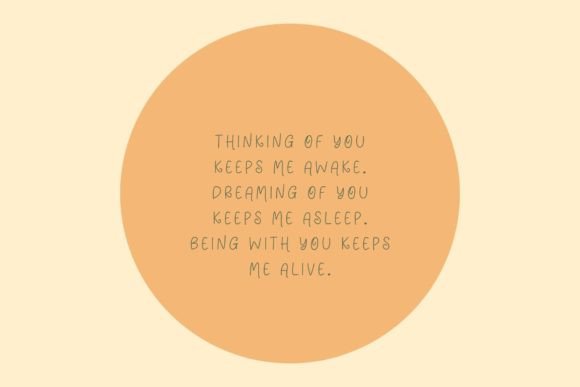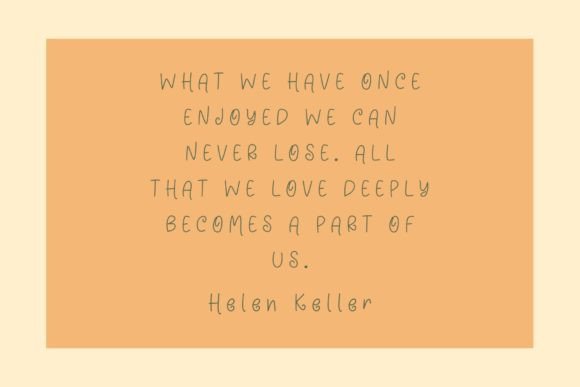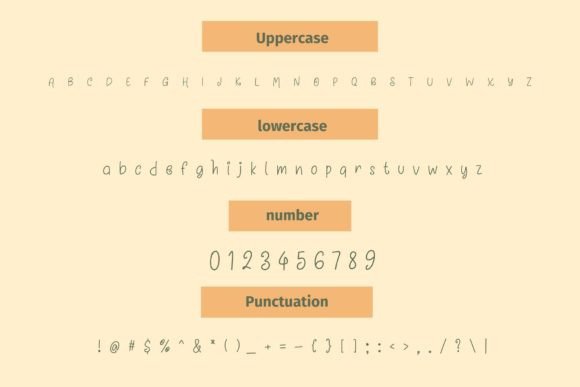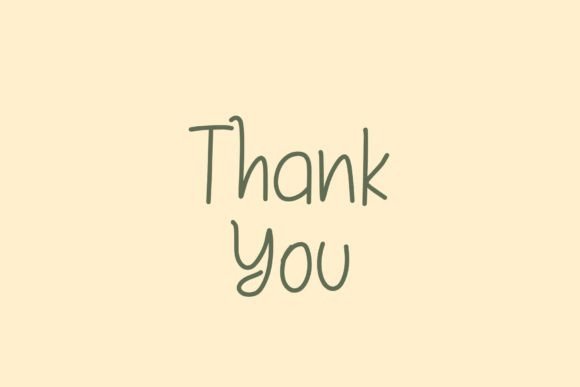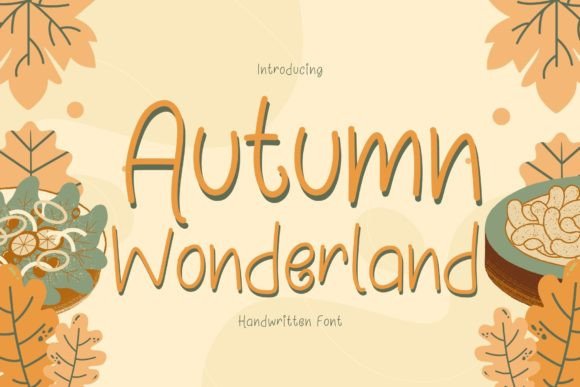
Discover the Charm of Autumn Wonderland Font: A Cute Handwritten Delight
As the seasons change and autumn leaves start to fall, designers and crafters are on the lookout for fonts that capture the cozy, playful essence of this magical time of year. That’s where the Autumn Wonderland Font comes in – a delightful, handwritten font that’s perfect for adding a touch of whimsy and authenticity to your projects.
What is Autumn Wonderland Font?
Autumn Wonderland Font is a carefully crafted, handwritten font that embodies the playfulness and charm of the autumn season. Its cute and endearing style makes it an ideal choice for a wide range of projects, from blog posts and logos to branding, ads, invitations, greeting cards, planners, photo albums, decorations, and more.
Key Features of Autumn Wonderland Font
- Playful and Authentic: Autumn Wonderland Font is designed to bring a sense of playfulness and authenticity to your designs. Its handwritten style is perfect for creating a personal touch that resonates with your audience.
- Versatile: This font is incredibly versatile and can be used for a wide range of projects, from digital designs to print materials.
- Easy to Read: The Autumn Wonderland Font is clear, legible, and easy to read, making it perfect for body text, headings, and titles.
- Unique and Whimsical: With its unique and whimsical style, this font is sure to add a touch of personality to your designs and make them stand out from the crowd.
Autumn Wonderland Font is a dream come true for designers and crafters who want to add a touch of autumn magic to their projects. Whether you’re creating:
- Blog Posts: Use Autumn Wonderland Font to add a playful touch to your blog posts and make them more engaging for your readers.
- Logos and Branding: Create a memorable brand identity with this font, perfect for businesses that want to convey a sense of friendliness and approachability.
- Ads and Marketing Materials: Stand out from the competition with eye-catching ads and marketing materials that feature the Autumn Wonderland Font.
- Invitations and Greeting Cards: Add a personal touch to your invitations and greeting cards with this beautiful, handwritten font.
- Planners and Photo Albums: Create beautiful, functional planners and photo albums that showcase your creativity and style.
- Decorations: Use Autumn Wonderland Font to create stunning decorations, such as fall-themed wall art, garlands, and more.
Tips for Using Autumn Wonderland Font